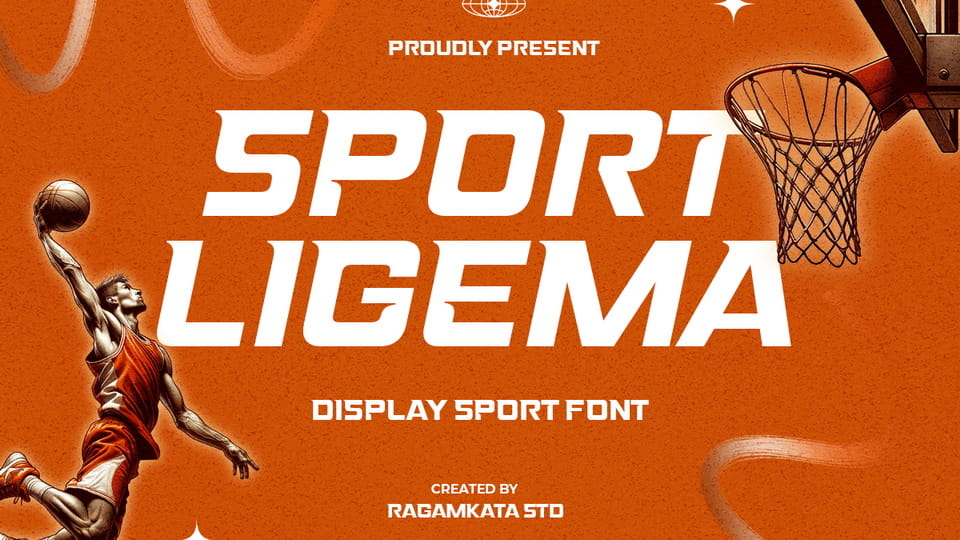
Download Sport Ligema font, a powerful display sport typeface designed to capture speed, strength, and competitive energy. With its bold structure, dynamic angles, and strong visual rhythm, this font delivers a high-impact athletic identity.